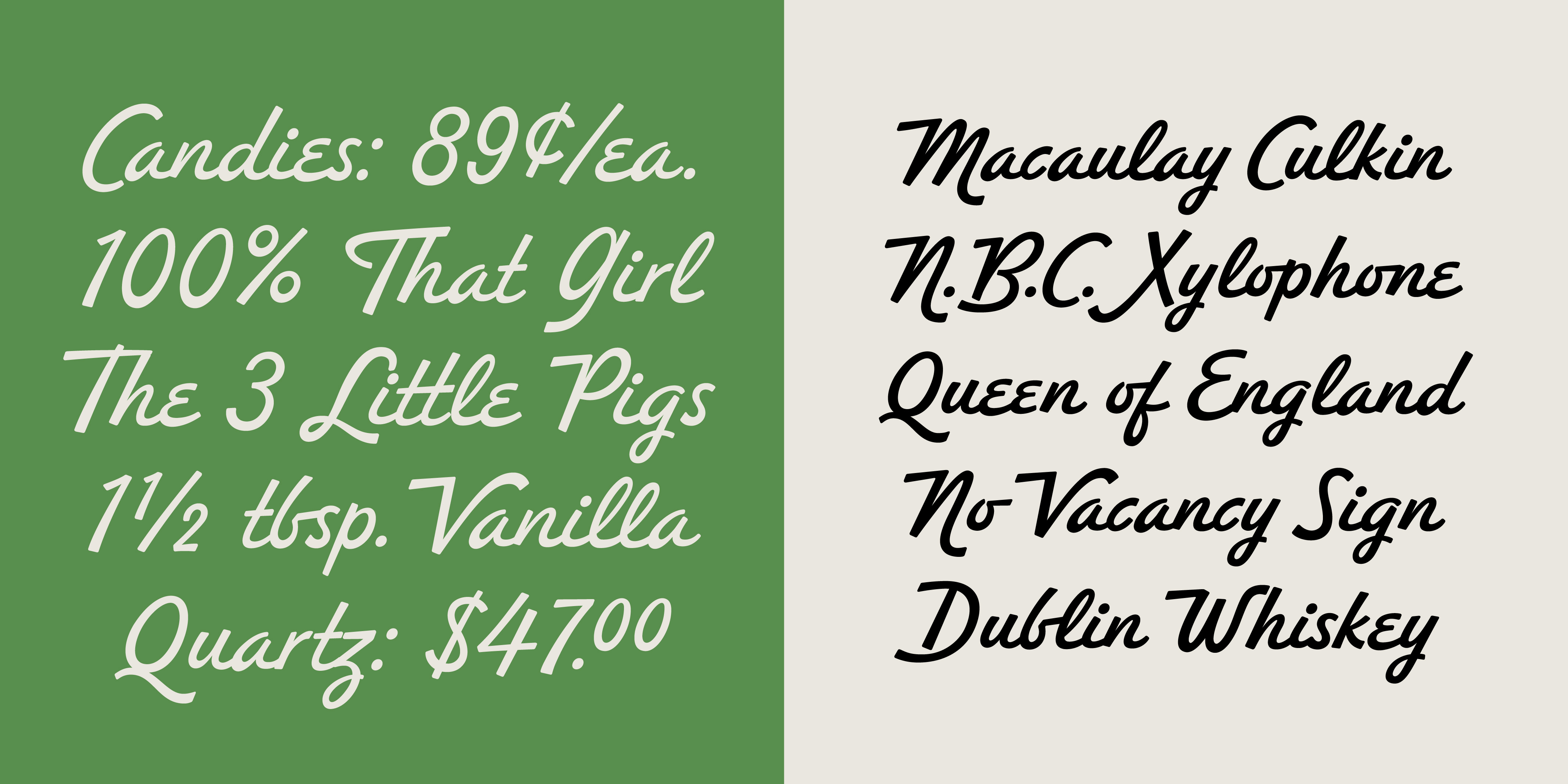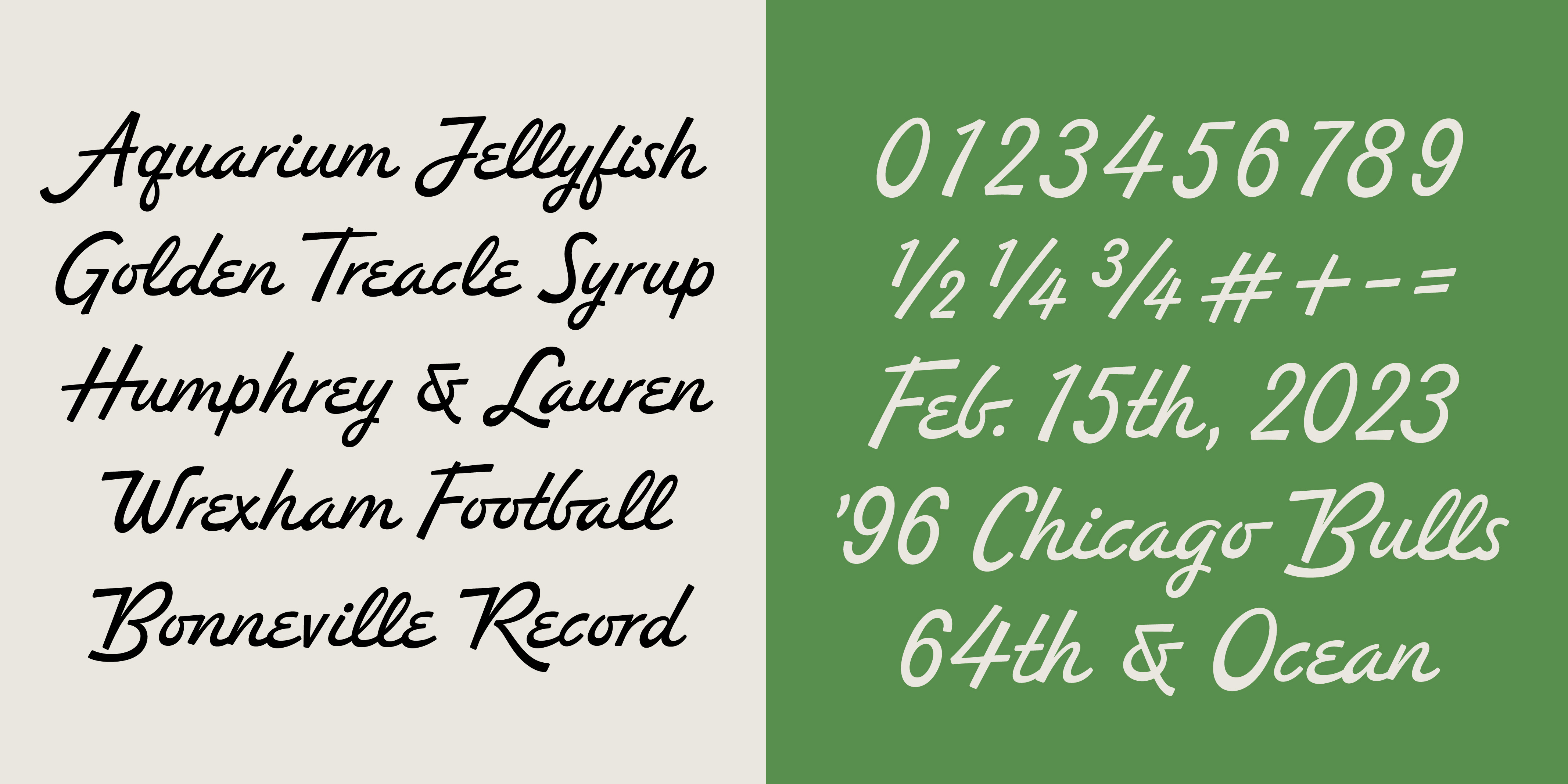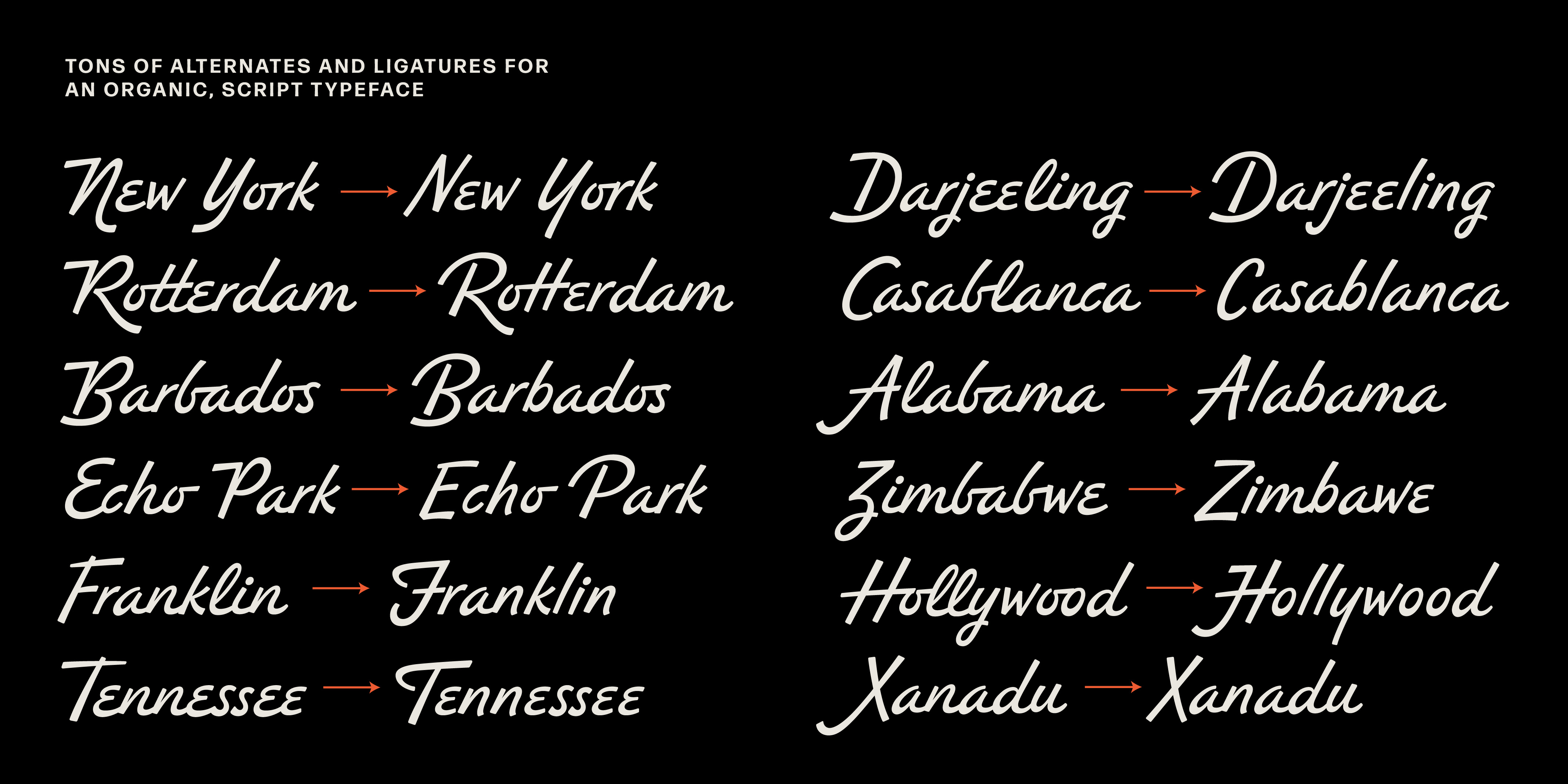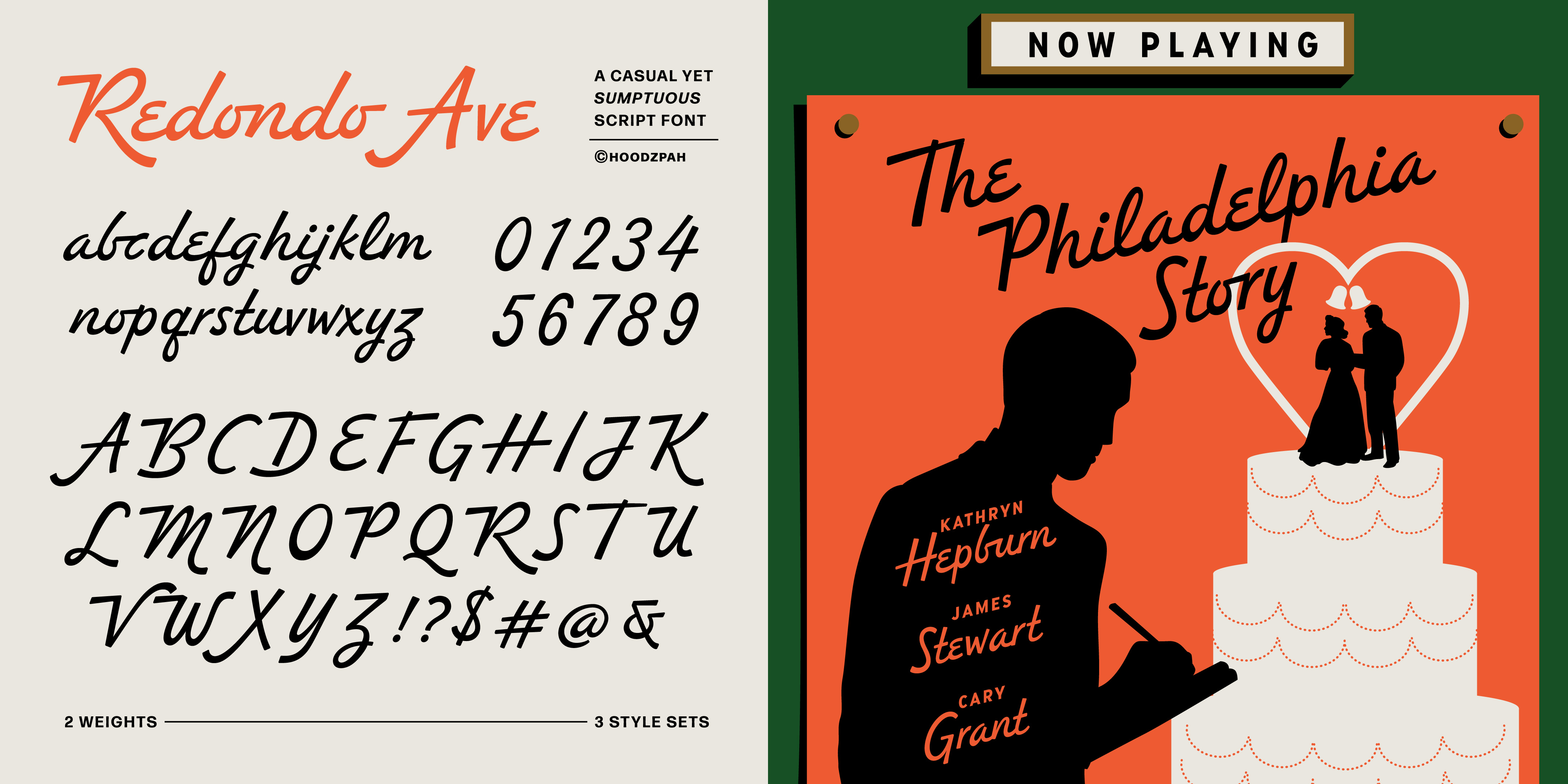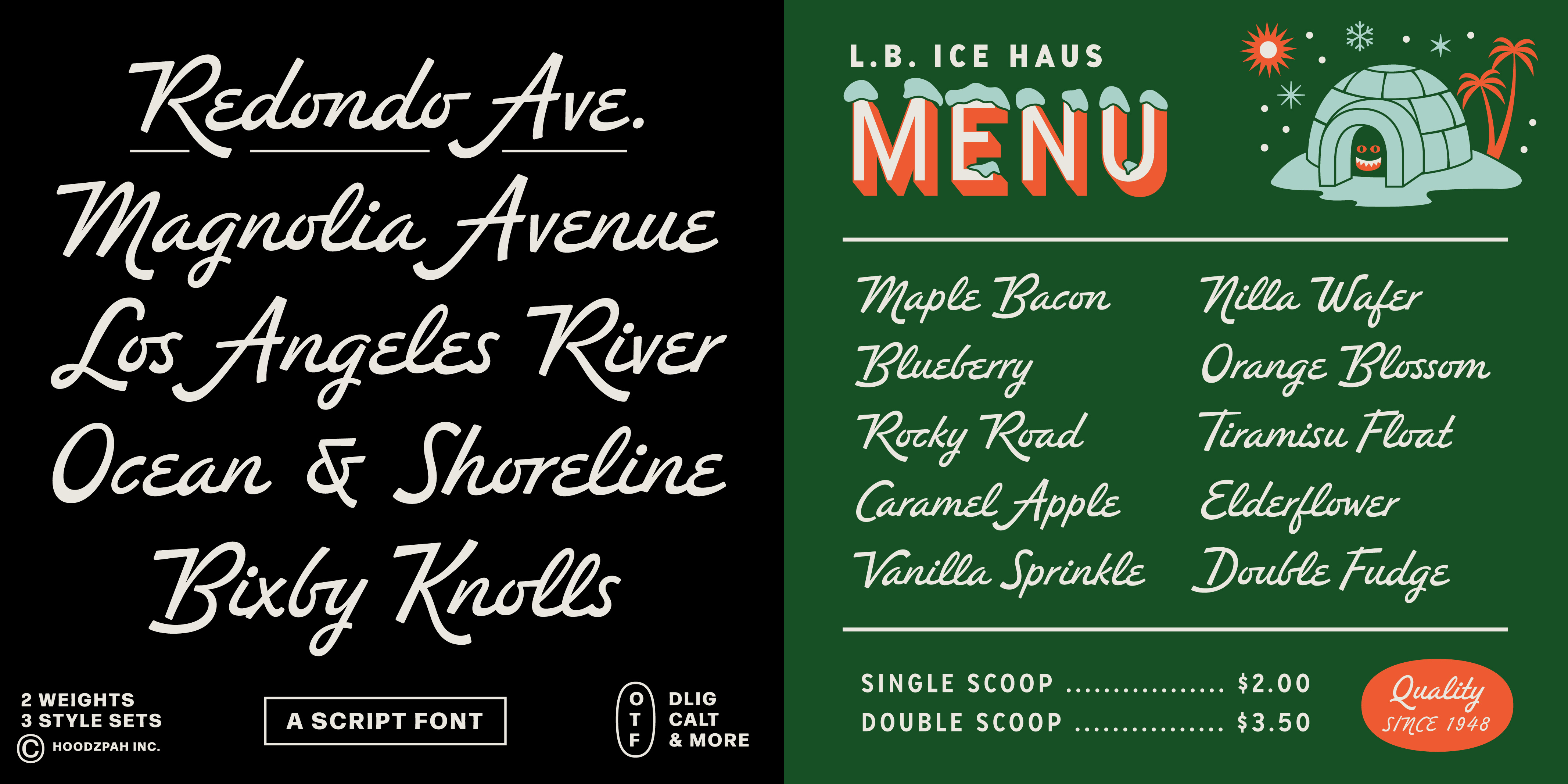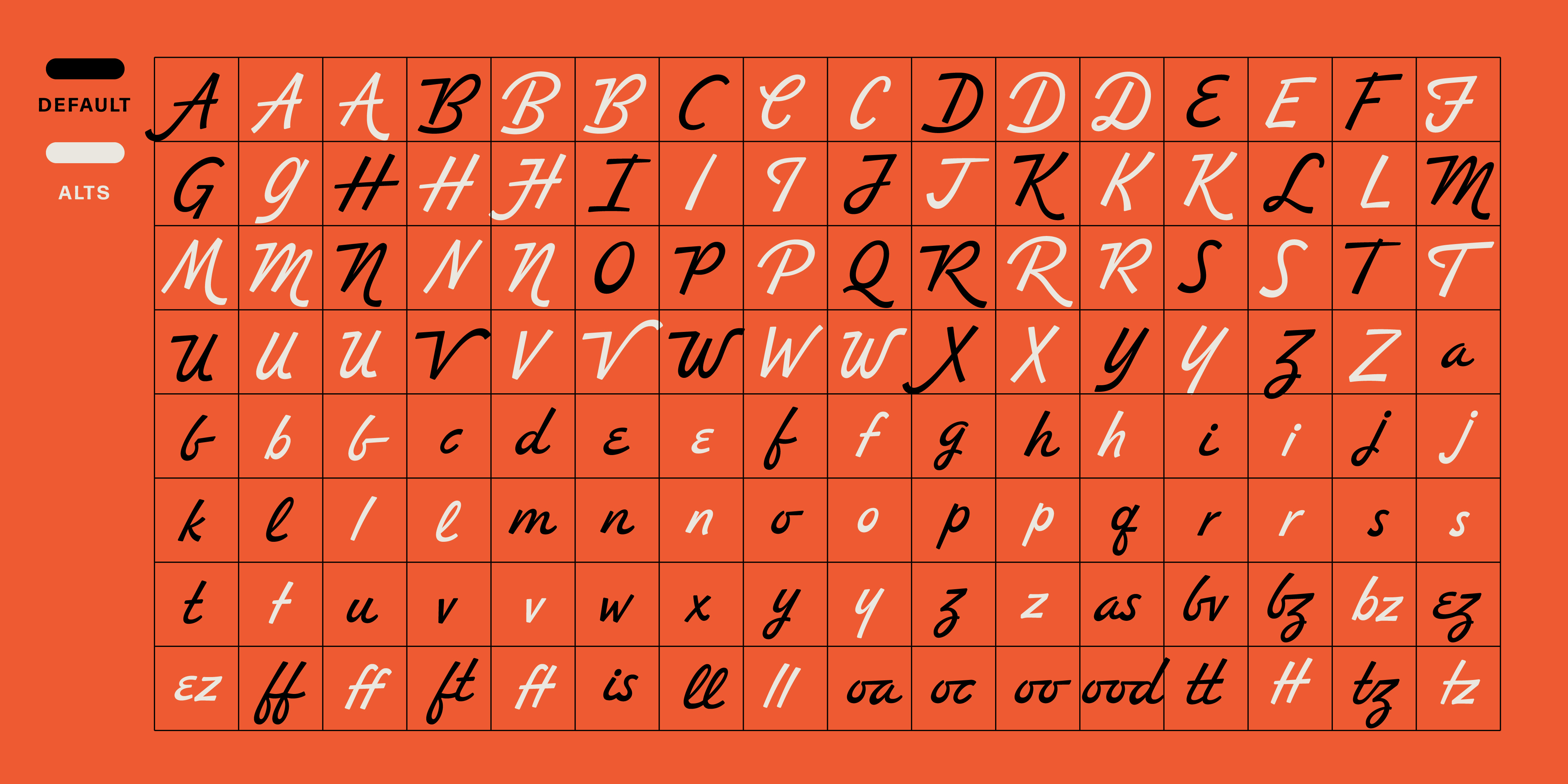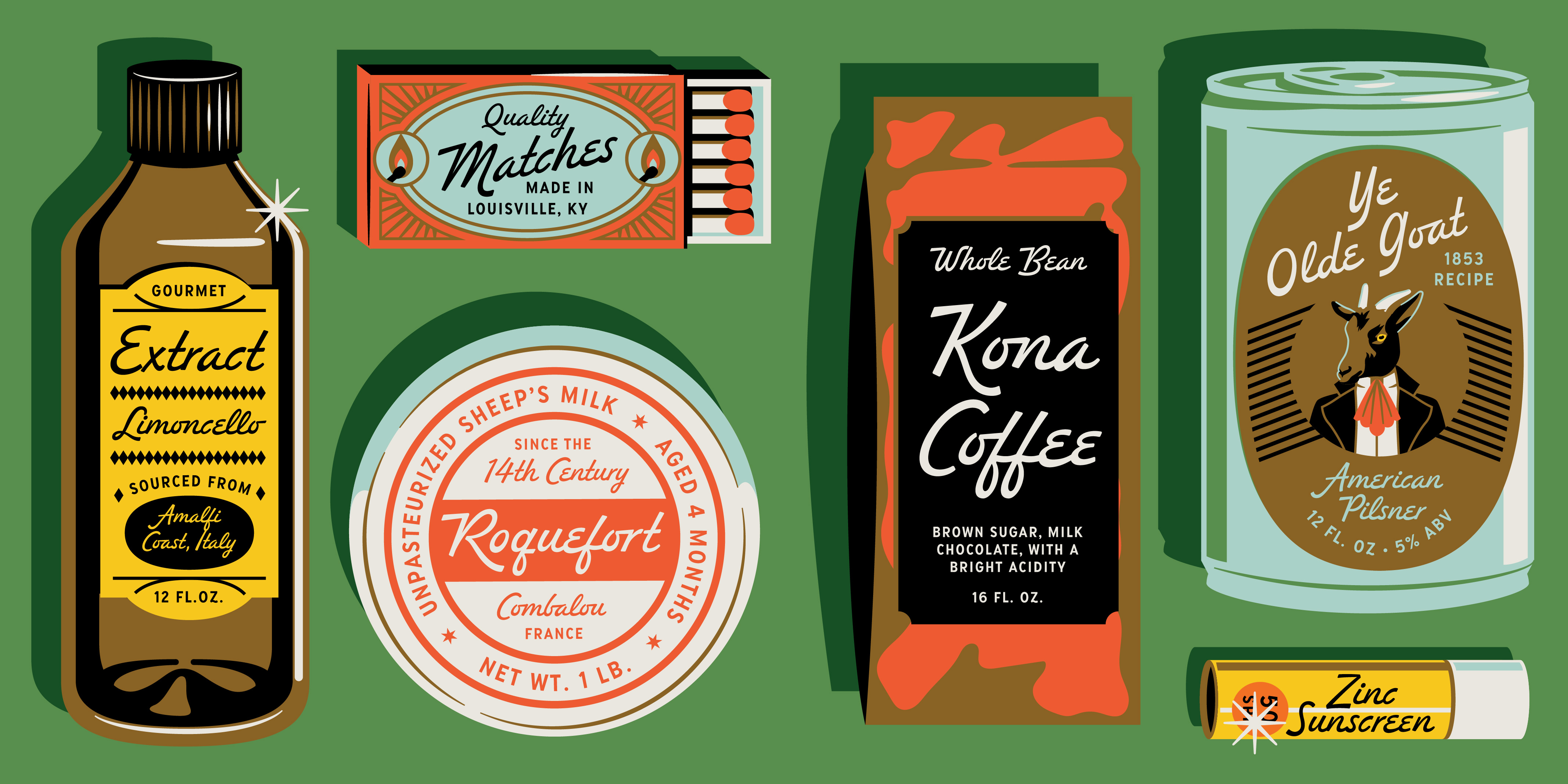
Redondo Ave
Script
An organic, casual script you that can dress up and take out.
Redondo Ave comes in 2 weights, with 560 glyphs supporting most Latin-based languages. This script font also features tons of alternate characters and style sets for a truly organic feel. This display font adds instant personality to any design or layout. Like Jennifer Coolidge, it has an extravagance that’s simultaneously relatable and down to earth.